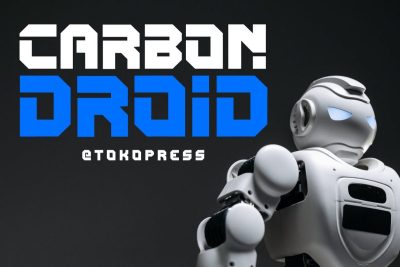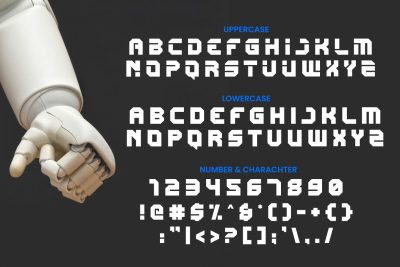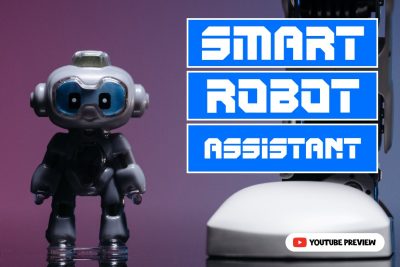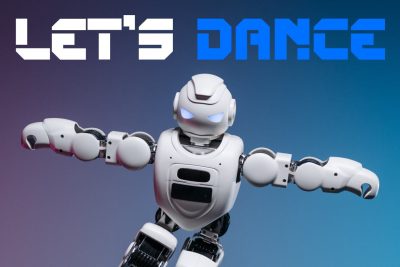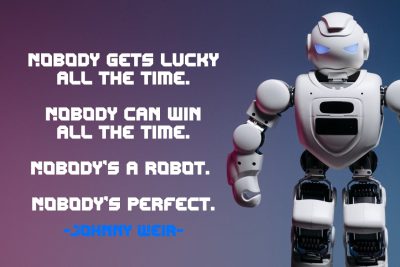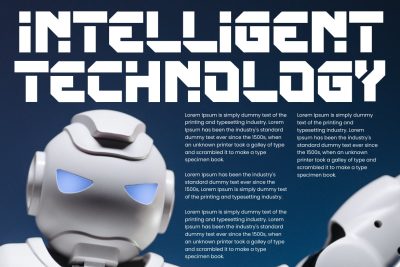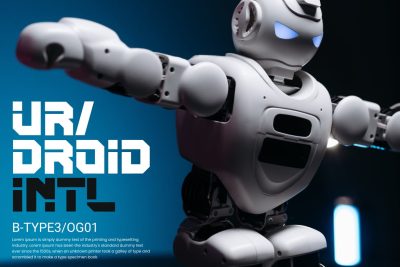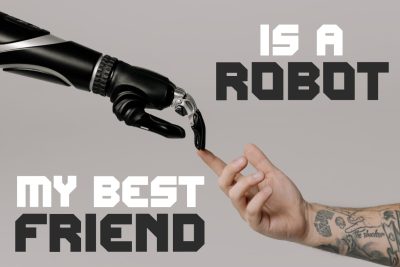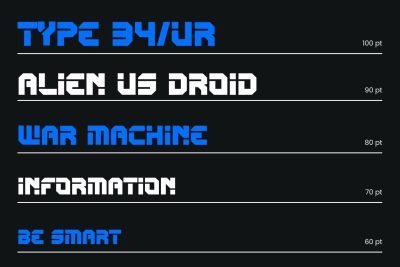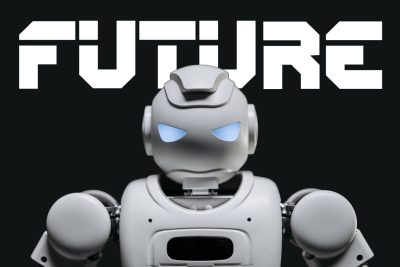
The Futuristic Font Carbon Droid encapsulates the essence of advanced technology and robotic innovation. Its bold geometric style is designed to make a statement in futuristic-themed projects, blending sharp edges with clean lines to create a dynamic and powerful visual appeal. Ideal for sci-fi branding, tech-driven interfaces, or robotics presentations, this font is a true representation of modern industrial aesthetics.
Carbon Droid provides versatility and impact, ensuring it stands out in any creative context. Whether youโre designing logos, headlines, or marketing visuals, this font seamlessly merges functionality with artistic expression. Its readability and unique structure make it suitable for both digital and print mediums, allowing your projects to thrive across all platforms.
Why Futuristic Font Carbon Droid Fits Your Creative Vision
The Futuristic Font Carbon Droid is more than just a typefaceโitโs a tool for storytelling in the digital age. Its sharp and edgy design pairs perfectly with innovative themes, capturing attention and conveying a sense of futuristic elegance. Whether you’re working on tech branding, gaming interfaces, or robotic designs, Carbon Droid aligns perfectly with the modern creative landscape.
This fontโs adaptability extends to numerous industries, including AI technology, space exploration, and digital art. For social media creators, Carbon Droid enhances posts with a bold and modern aesthetic, driving engagement and leaving a lasting impression. From promotional banners to immersive digital experiences, it empowers you to push creative boundaries and captivate your audience.
Additionally, its futuristic vibe makes Carbon Droid a great fit for educational and interactive projects. Teachers and students can use it to design compelling visuals, such as infographics or presentations, that resonate with tech-savvy audiences. This font inspires curiosity and creativity, making it a versatile choice for both professional and educational settings.
In conclusion, the Futuristic Font Carbon Droid is an essential asset for designers seeking innovation and boldness in their projects. From robotic themes to tech branding, its unique style sets a new standard for futuristic typography, elevating every design it touches.